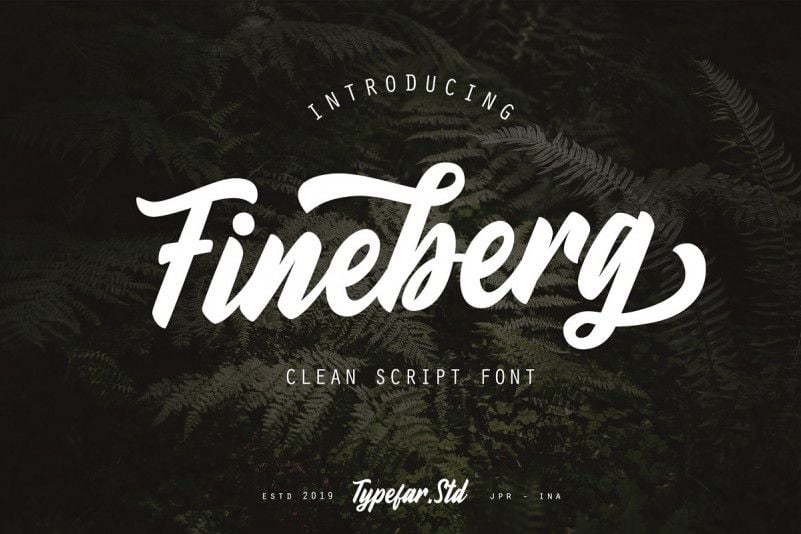
Fineberg Script Font
Proudly presents latest product Daytonia Font! This is hand painted typeface designed to help you create the look of stunning custom hand-lettering. It is designed and shared by Typefar. Fineberg Script Font Clean Script Font.
Fineberg a beautiful for signatures, logos, wedding invitations, website, headline, letterheads, nameplate, labels, bulletins, posters, quotes, badges, branding, greeting Cards, etc. and all project design other.